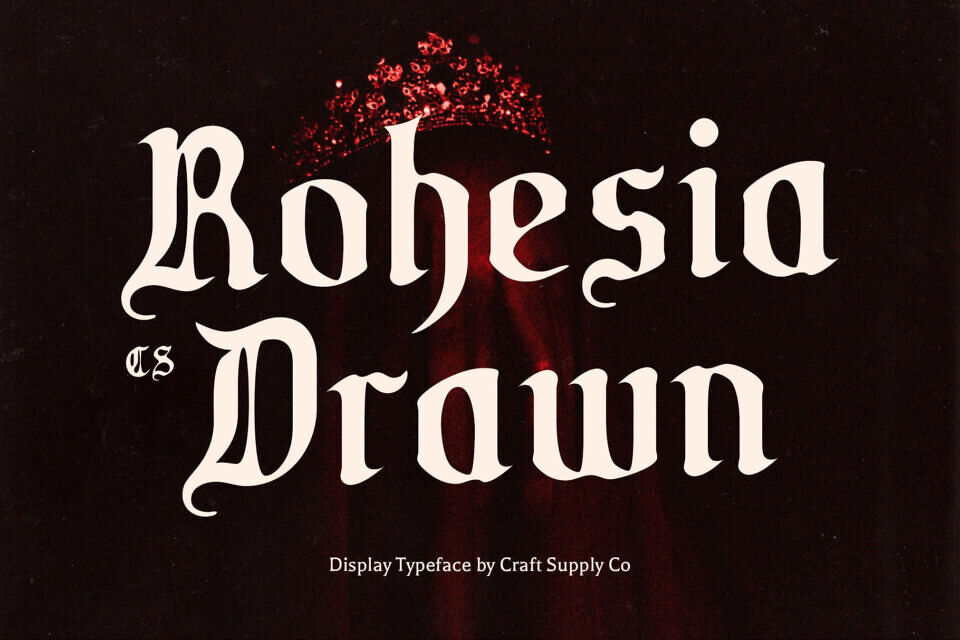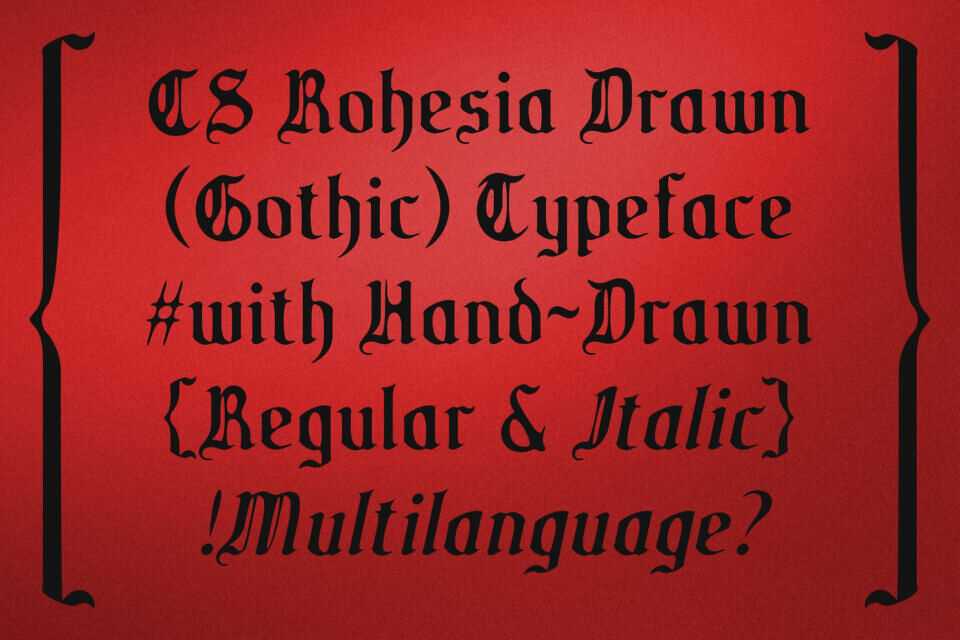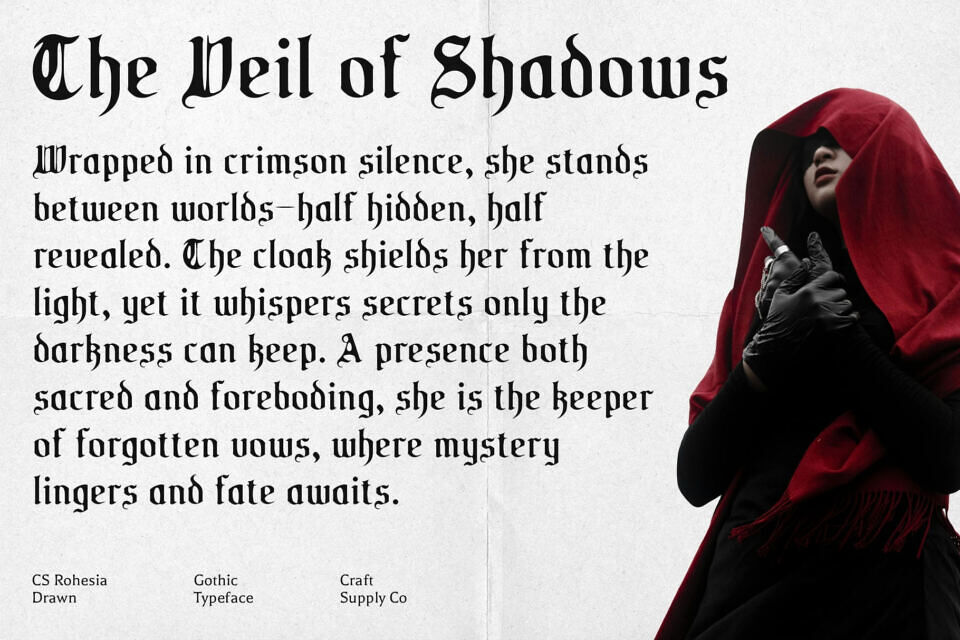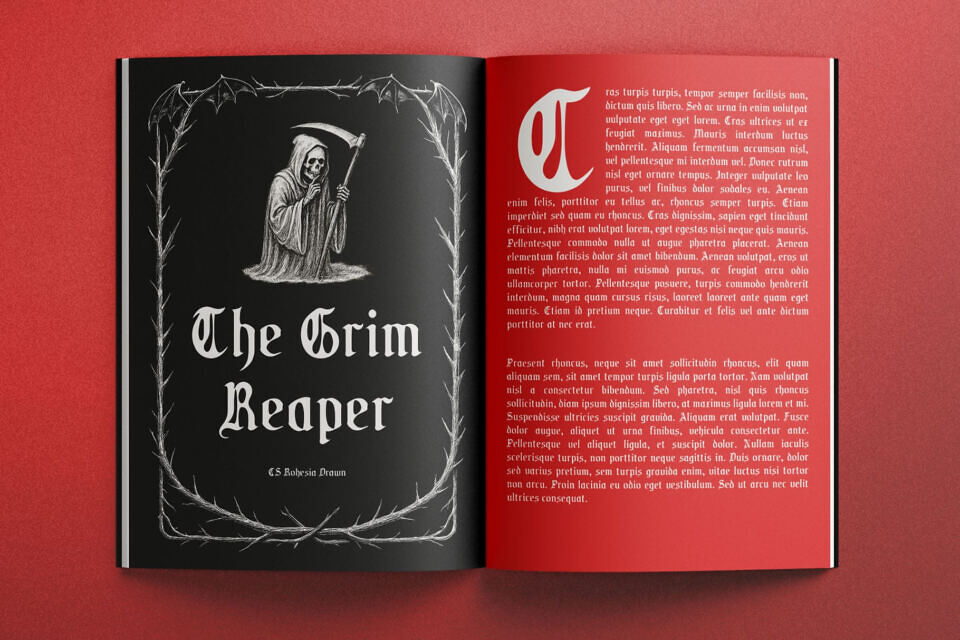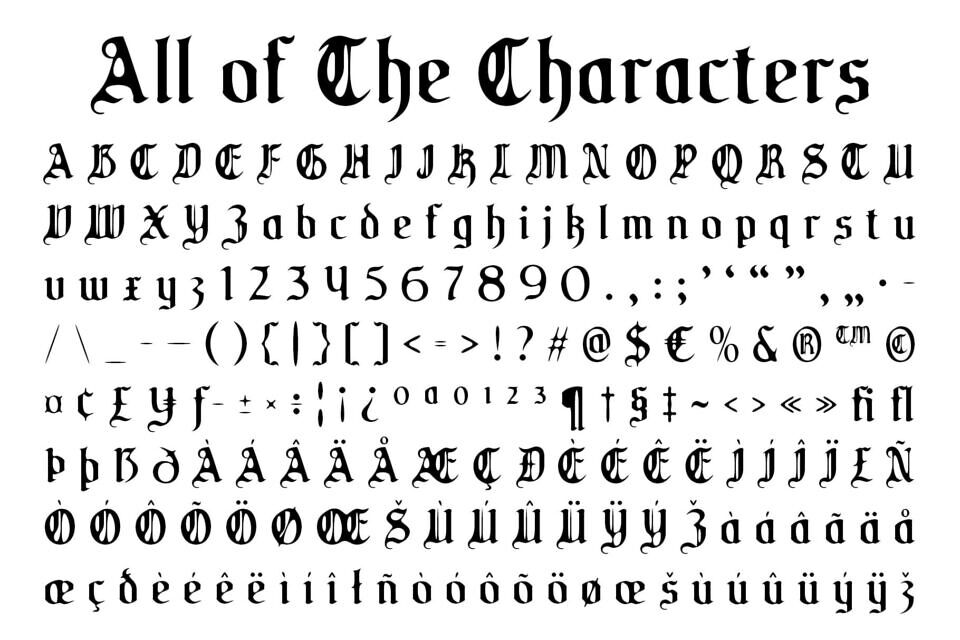
CS Rohesia Drawn is a display font featuring bold, elegant letterforms inspired by classic Gothic typography. Its sharp, decorative lines evoke sophistication, tradition, and a timeless sense of style, perfect for designs with a dramatic impact.
Enhanced with a drawn effect, each character gains a handcrafted texture that adds depth, uniqueness, and artistic flair. The manual detailing transforms traditional Gothic forms into a lively and expressive typeface.
This artistic font combines the structured elegance of Gothic design with playful, handmade nuances. Perfect for projects that aim to communicate a classic, mysterious, or artistic vibe, this ornamental font is ideal for posters, branding, book titles, or other creative applications.